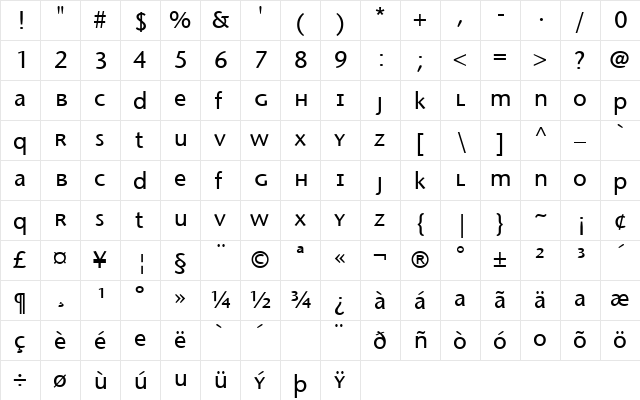
MigraineSans Regular
Design Context for MigraineSans Typeface
MigraineSans takes a measured approach to typography — its balanced proportions and neutral character make it a reliable workhorse for both digital and print work.